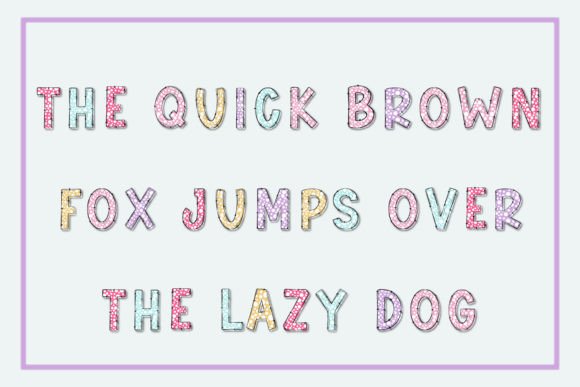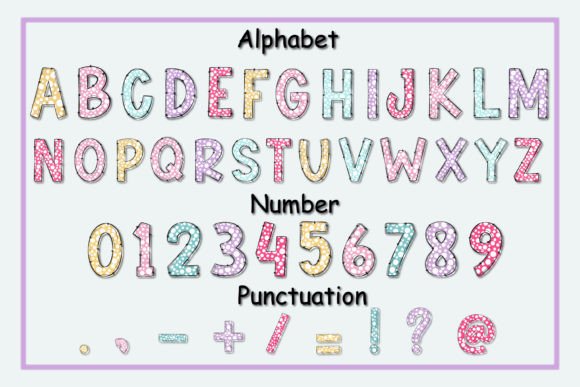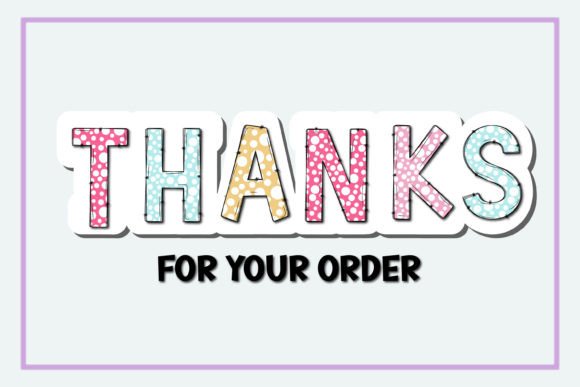
Unleash Your Creativity with Colors Rb Dots Font
You know that moment when you’re working on a design project, and suddenly, a burst of inspiration hits you? You envision a vibrant, playful, and eye-catching visual that leaves a lasting impression. That’s exactly what Colors Rb Dots Font is designed to do – add a splash of joy and whimsy to your creative endeavors.
Perfect for branding initiatives, packaging designs, logotypes, and headlines, this font is an absolute game-changer for designers. Its unique charm can also elevate wedding invitations, making them truly unforgettable. With the black version compatible with Cricut Design Space and other cutting machines, you can unleash your creativity without any limitations.
Key Features of “Colors Rb Dots Font”
- Font Family: A unique, modern sans-serif font with a geometric feel, featuring a distinctive dot pattern.
- Character Set: Includes a wide range of characters, including Latin, Cyrillic, and Greek alphabets, as well as punctuation and symbols.
- Unique Characteristics: The dot pattern creates a visually interesting and dynamic effect, making it ideal for use in modern branding and design projects.
Review of “Colors Rb Dots Font”
Overall, I was impressed with the “Colors Rb Dots Font”. Here are some of its notable strengths: ✨ It has a unique and playful aesthetic that can add a touch of whimsy to any design. ✨ The font is highly customizable, allowing you to easily change the size, color, and spacing of the dots. ✨ It’s also quite versatile, making it suitable for a wide range of design projects, from children’s books to advertising campaigns.
However, there are some limitations to consider: ⚠️ The font may not be ideal for situations where a clear, concise message is crucial, as the dots can be distracting and make it harder to read the text. ⚠️ Additionally, the font may not be as effective in large block paragraphs or lengthy texts, as it can become overwhelming.
Overall, I think “Colors Rb Dots Font” is a great addition to any designer’s toolkit, but it’s essential to use it thoughtfully and consider the context of your project.
- Unique and playful aesthetic
- Versatile and suitable for various design projects
To get the most out of Colors Rb Dots Font, use it for:
1. Creating playful and whimsical designs.
2. Adding visual interest to text-based designs.
3. Creating a bold and eye-catching headline.
Colors Rb Dots Font is commonly used for:
1. Social media graphics.
2. Brochures and flyers.
3. Branding and identity design.
Alternatives to “Colors Rb Dots Font” for Designers
1. Avenir Next
Avenir Next is a sans-serif font with a modern and clean design. It is ideal for use in digital media, such as websites, apps, and e-books. Avenir Next is more versatile than Colors Rb Dots Font, offering a range of weights and styles that can be used for both body text and headings.
Comparison: Avenir Next has a more neutral and professional look compared to the playful and creative vibe of Colors Rb Dots Font.
Montserrat is a sans-serif font with a urban and industrial feel. It is perfect for use in graphic design, signage, and branding. Montserrat is more geometric and structured than Colors Rb Dots Font, making it suitable for use in designs that require a strong and modern look.
Comparison: Montserrat has a more rugged and edgy look compared to the smooth and rounded edges of Colors Rb Dots Font.
Open Sans is a sans-serif font with a friendly and approachable design. It is ideal for use in digital media, such as websites, apps, and e-books. Open Sans is more legible and readable than Colors Rb Dots Font, making it suitable for use in body text and long-form content.